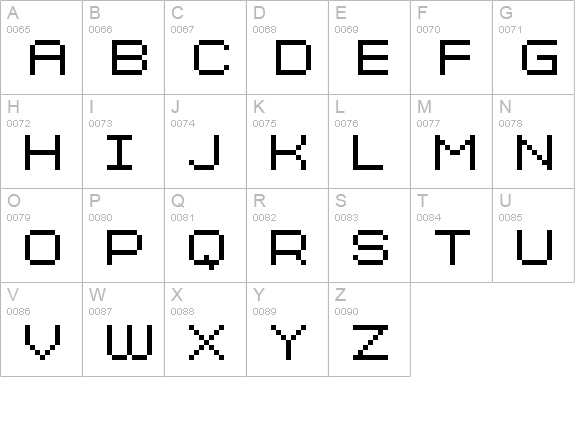
Grixel Kyrou 7 Wide Xtnd is a distinctive, extended-width variant in the Grixel typeface family \xE2\x80\x94 well suited to design and typography projects.
Grixel Kyrou 7 Wide Xtnd is a versatile and modern font that combines sleek design with a touch of sophistication. This typeface features wide spacing and extended characters, making it perfect for a variety of creative projects. Whether you're designing a poster, creating a logo, or crafting a website, Grixel Kyrou 7 Wide Xtnd is sure to make a bold statement. What sets this font apart is not only its unique design but also the fact that it is available for free download at FontsMarket.com. This means you can easily access this high-quality font without having to spend a penny. With Grixel Kyrou 7 Wide Xtnd, you can elevate your designs and stand out from the crowd without breaking the bank. Don't miss out on the opportunity to enhance your projects with this eye-catching and stylish font. Download Grixel Kyrou 7 Wide Xtnd for free today and take your designs to the next level!